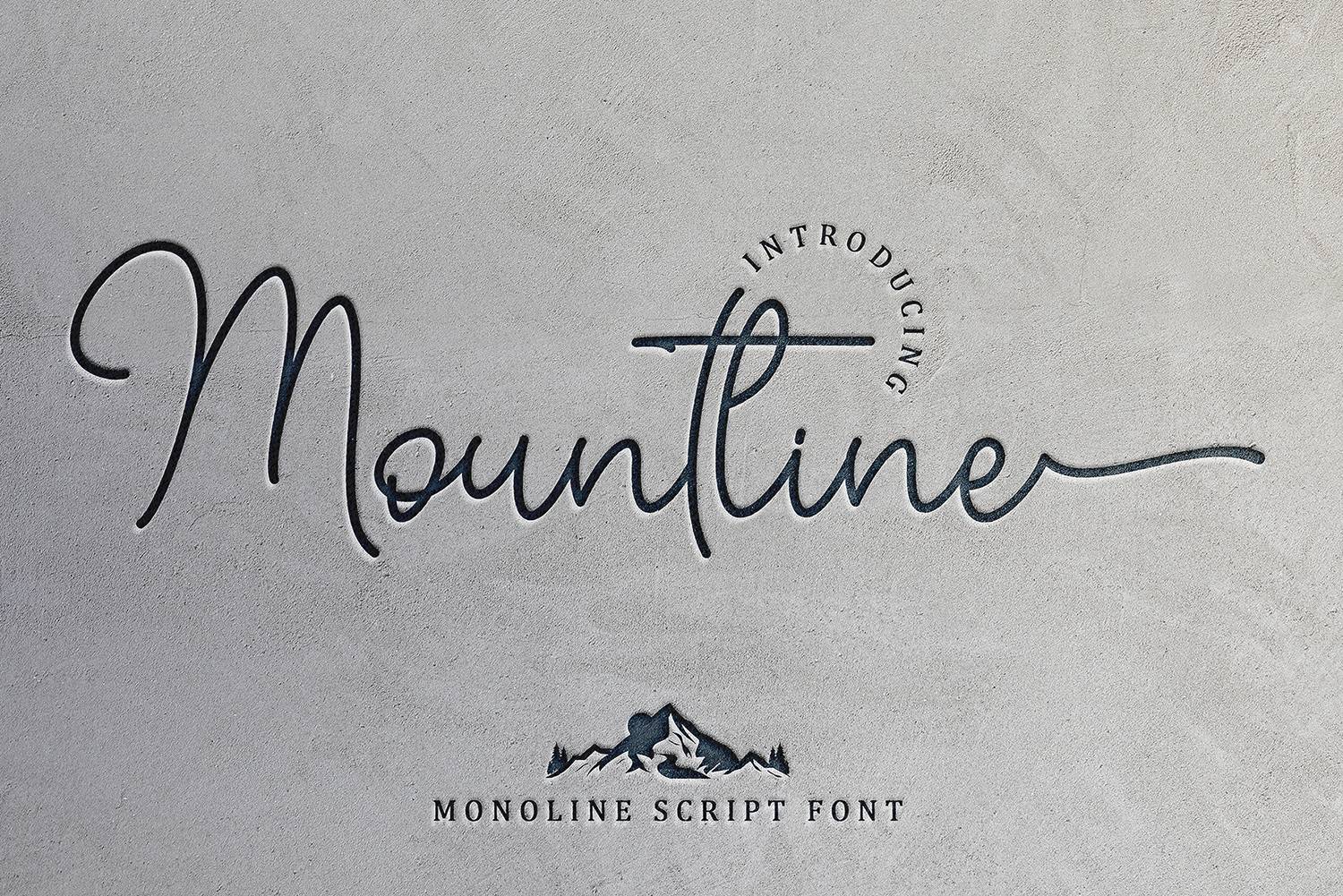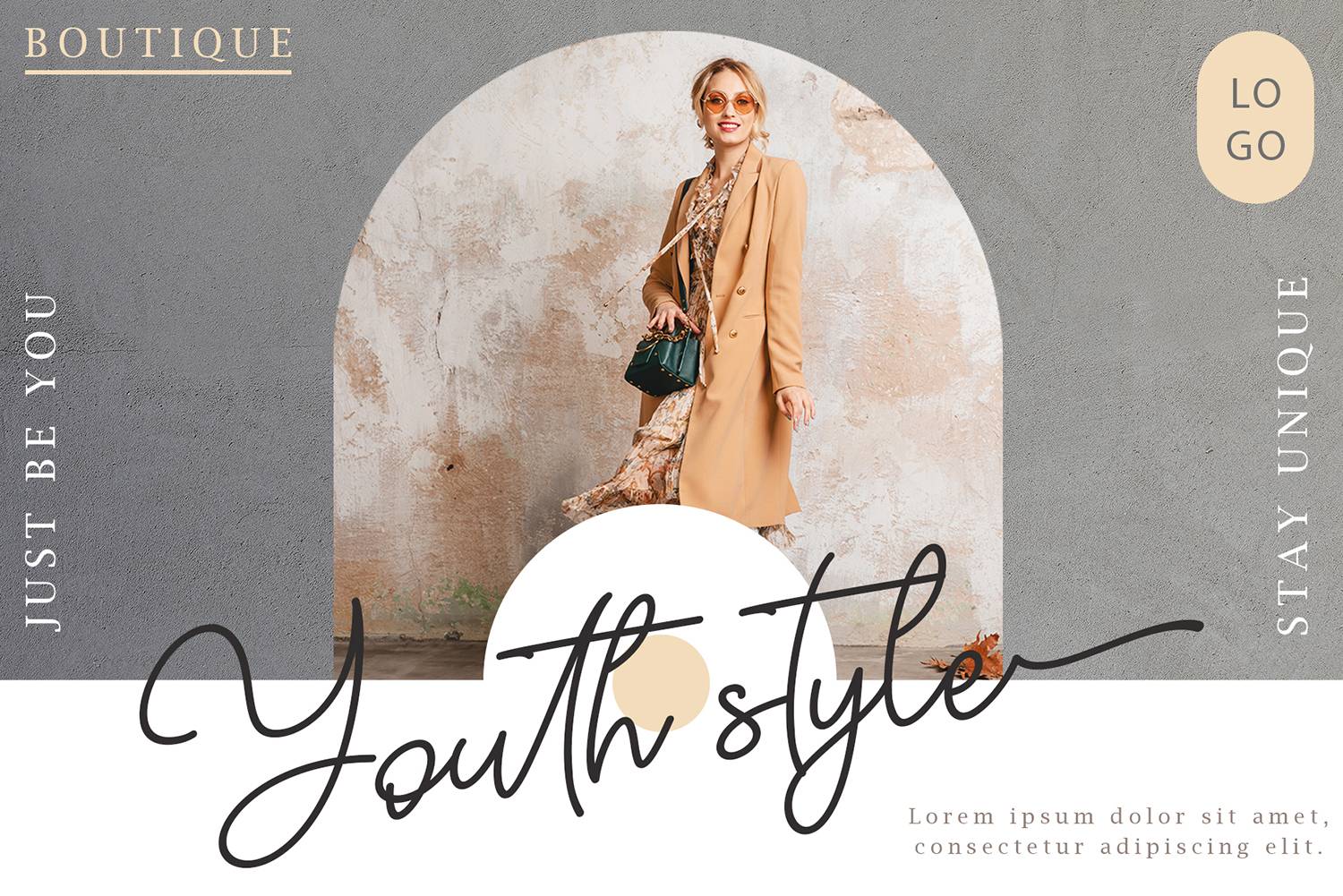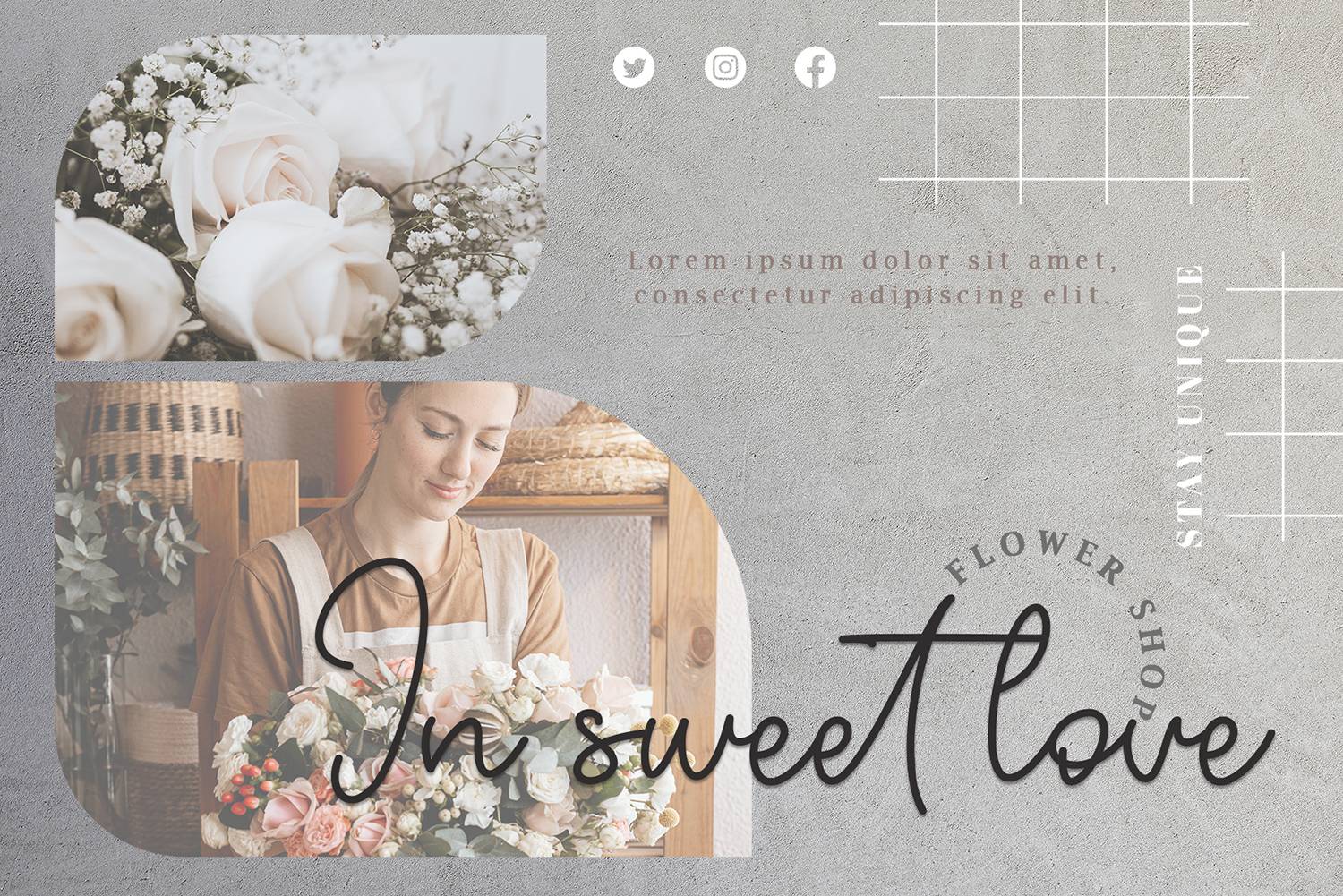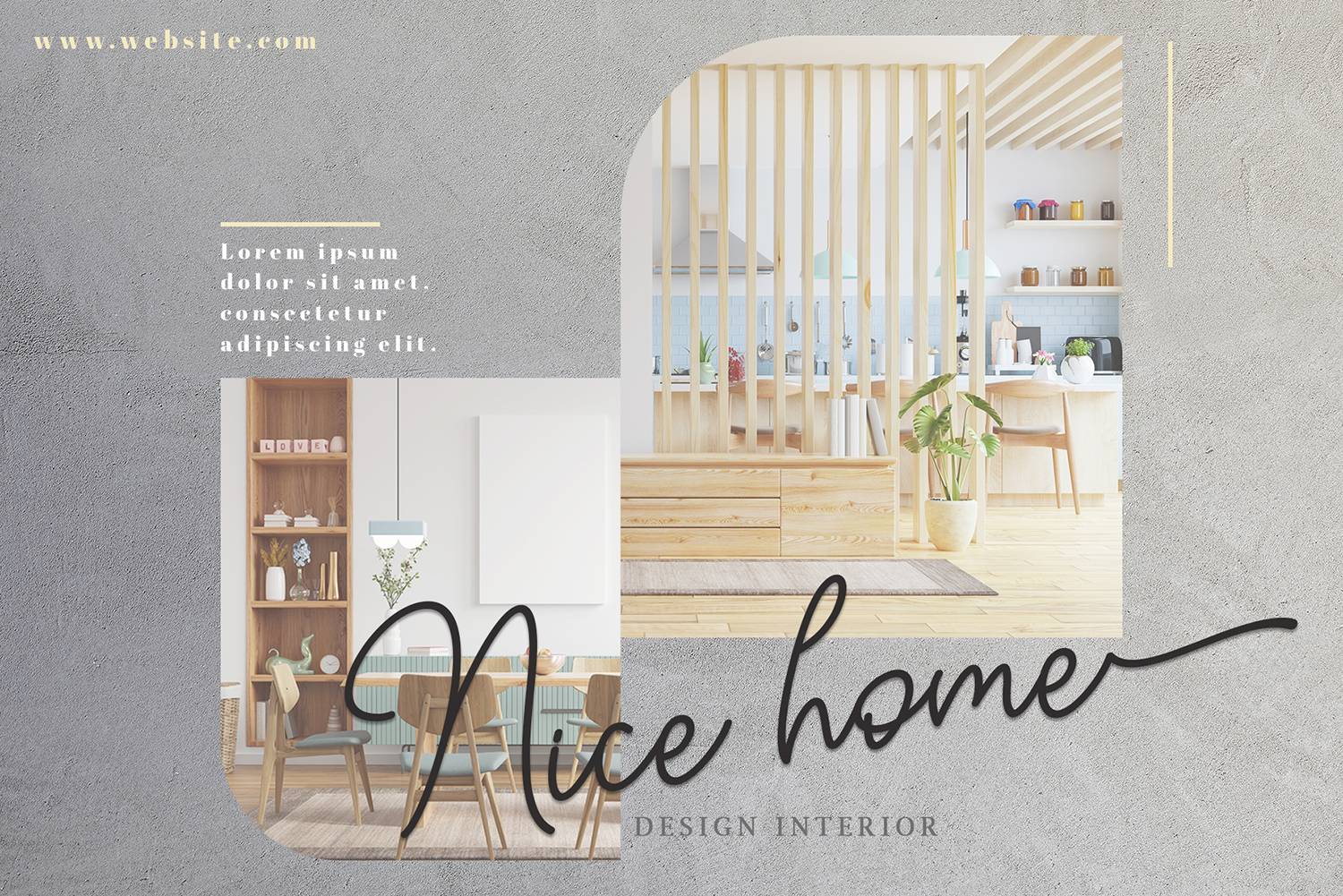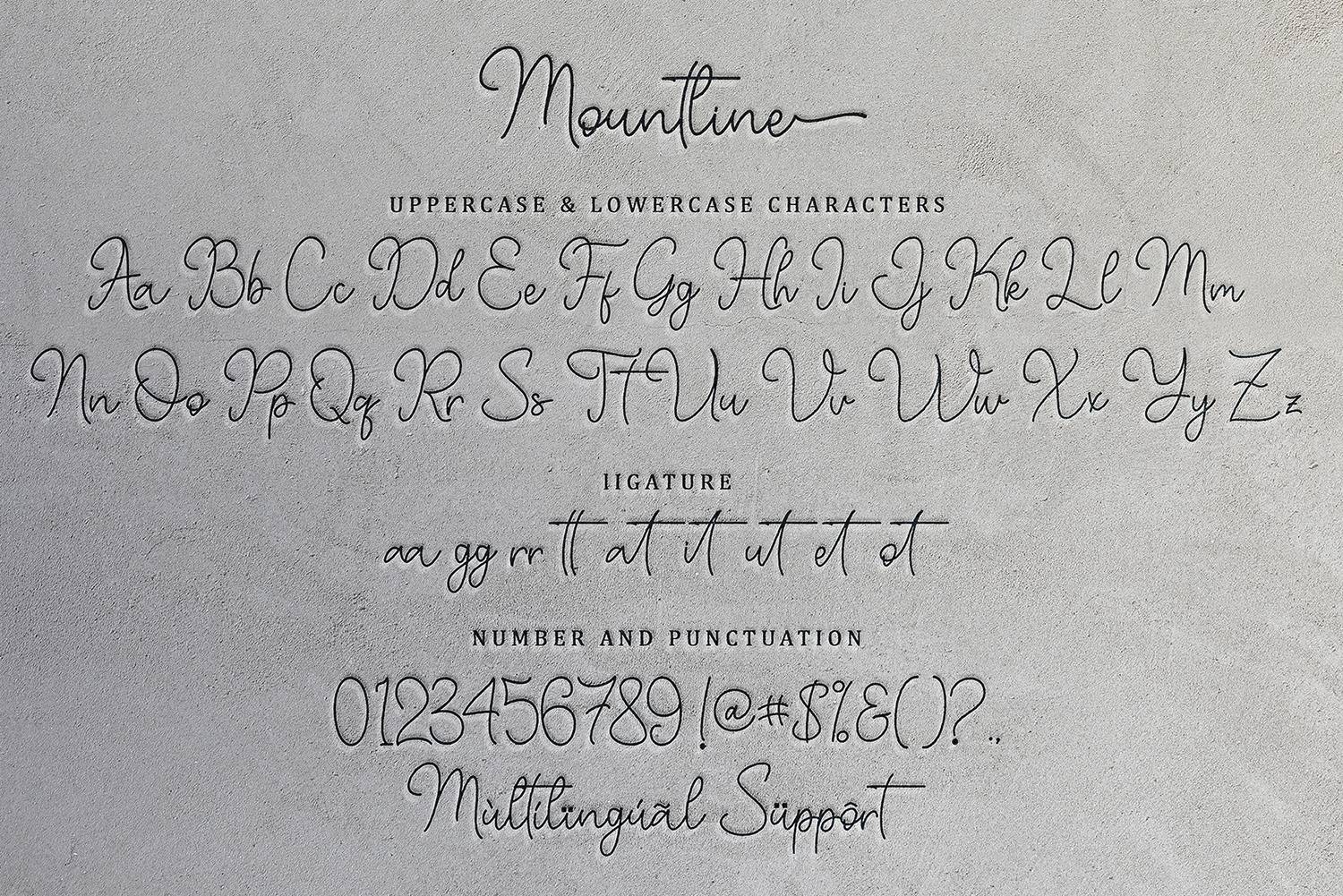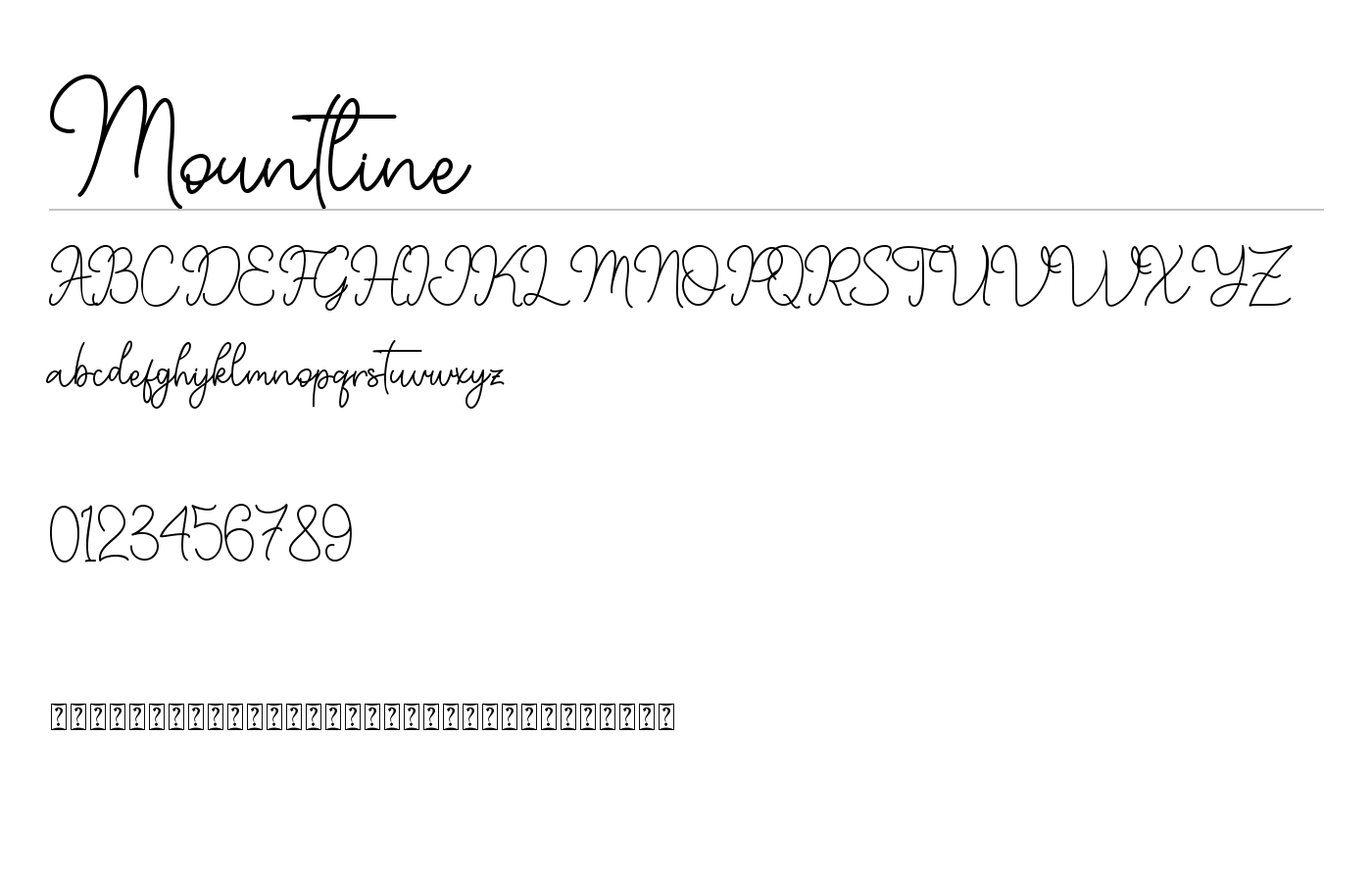
Mountline is a delicate, handwritten script font characterized by its thin, flowing lines and elegant, casual style. Its tall, slender letterforms with subtle variations create a graceful, airy feel, making it ideal for invitations, branding, and creative projects that seek a personal, artistic touch. This font works beautifully in designs that require a refined yet approachable aesthetic.
Mountline Font
About Mountline Font